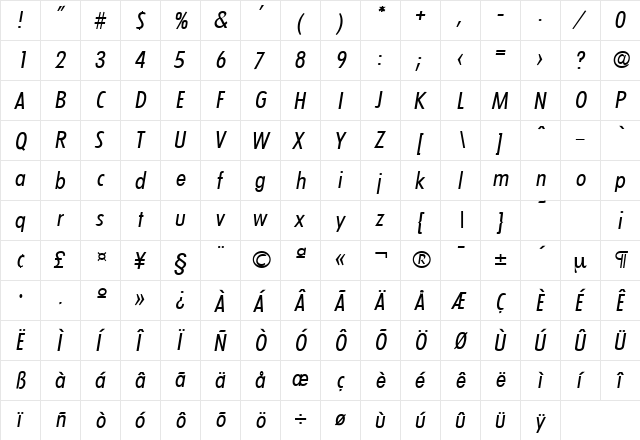
LimerickCond-Serial RegularItalic
Design Context for LimerickCond-Serial Typeface
LimerickCond-Serial offers clean, dependable letterforms without strong stylistic allegiance, making it a practical choice for designers who need flexibility. The slanted form adds forward momentum and visual energy. Its narrow stance lets it pack a punch even in space-constrained designs.